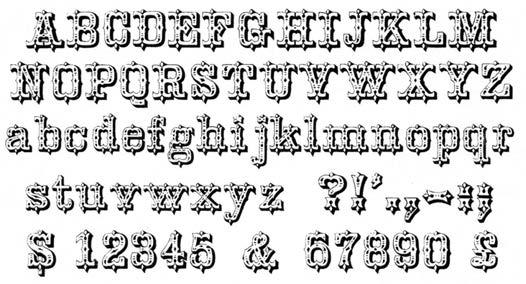
Tangier
Curious if anyone has a better specimen sample of this typeface? Also, the Photolettering catalogue shows a version with decorative lines around the characters, wondering if anyone has any information on the particular typeface.